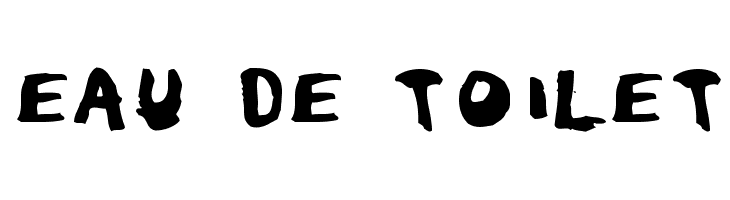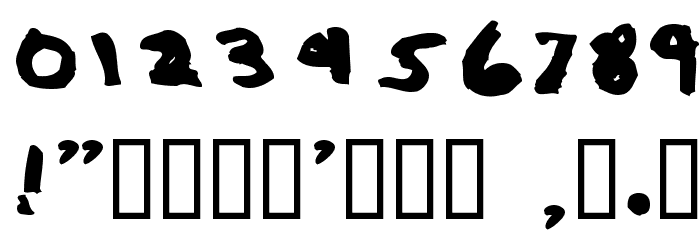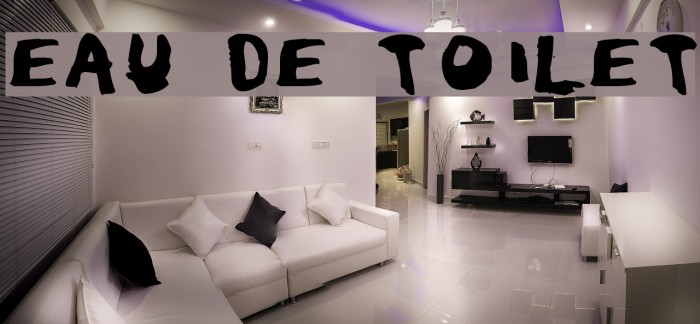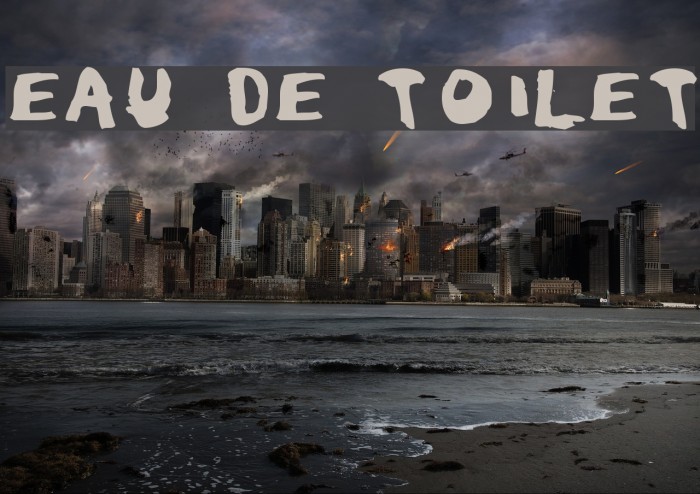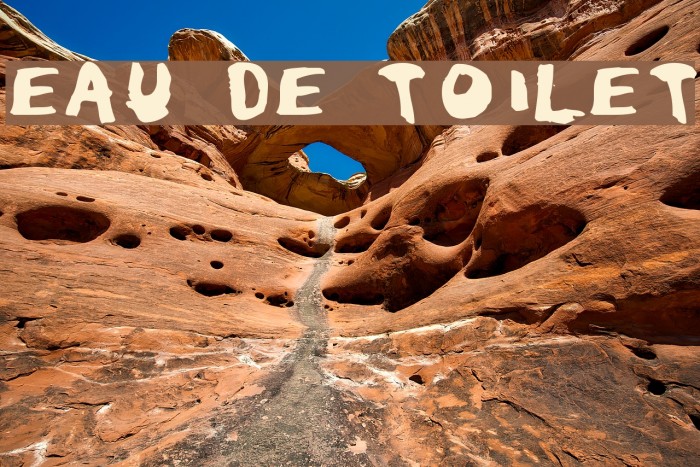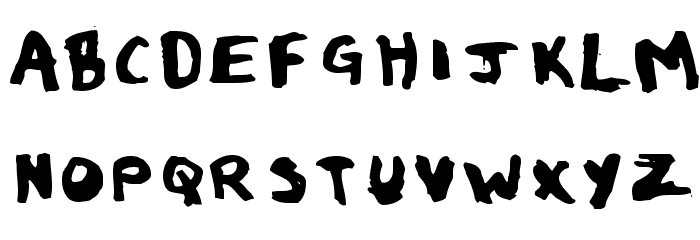
Eau de Toilet Font
Eau de Toilet Description
This font features a bold and expressive style with a hand-drawn appearance. The characters are thick and slightly irregular, giving them a dynamic and energetic feel. The uppercase and lowercase letters maintain a consistent weight, contributing to a cohesive look. The numbers and special characters follow the same bold and playful design, making them stand out. The overall aesthetic is casual yet impactful, suitable for projects that require a personal touch. The font's unique character shapes and bold presence make it ideal for creative and artistic applications.
A bold, hand-drawn font with an expressive and dynamic style from Handwritten fonts.
- Proposed Projects: Ideal for posters, logos, branding, and creative projects that require a bold, artistic touch.